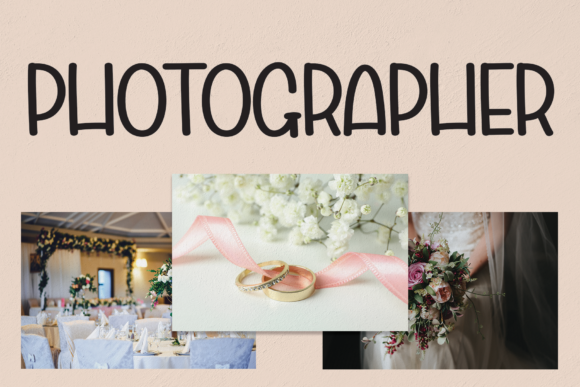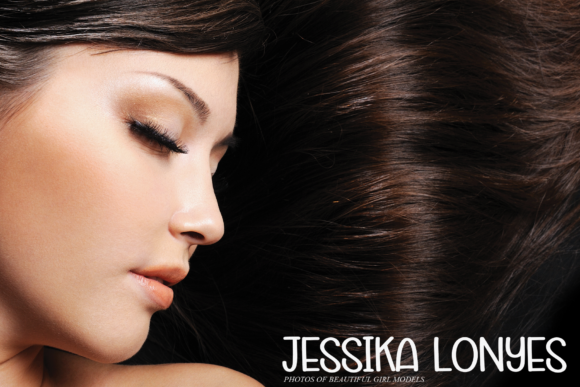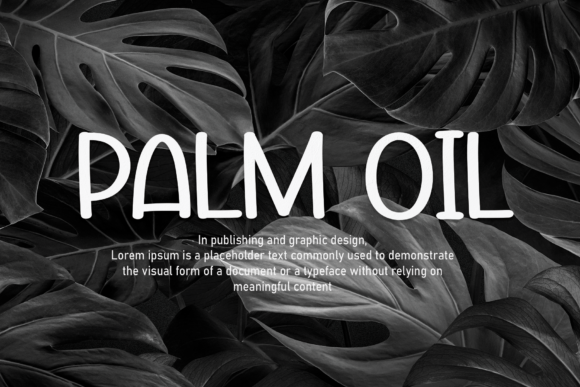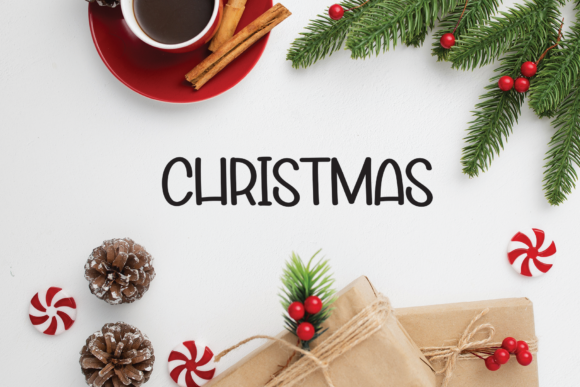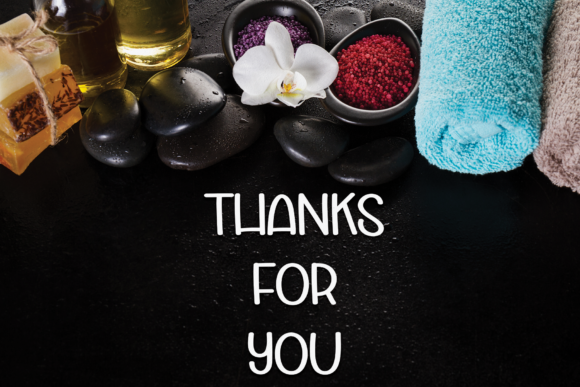
The Birth of a Beautiful Font: A Designer’s Delight
I’ll never forget the time I was working on a wedding invitation project, and my client asked for a font that was both elegant and playful. I scoured the internet, tried out countless fonts, but nothing seemed quite right. That was until I stumbled upon the Birthday Font. It was love at first sight! ✨
With its simple and adaptable script style, Birthday Font quickly became my go-to for a wide range of design projects. From wall displays to social media post logos, this font has proven to be a versatile and reliable choice.
What Makes Birthday Font So Special?
So, what sets Birthday Font apart from other fonts out there? Let’s take a closer look.
- ✨ Simple and adaptable script style
- ✅ Ideal for a wide range of design projects, from wall displays to social media post logos
- ✅ Easy to read and understand, even at small sizes
- ✅ Works well with both modern and traditional design elements
- ⚠️ Limited availability of stylistic alternates
- 🤔 May not work well with very ornate or intricate design elements
The Designer Inspiration Behind Birthday Font
The story behind Birthday Font is one of creativity and passion. According to the designer, the font was inspired by the joy and celebration of birthdays. The goal was to create a font that was both simple and adaptable, yet elegant and refined.
Q: What type of designs is Birthday Font best suited for?
Birthday Font is ideal for a wide range of design projects, including wall displays, wedding invitations, social media post logos, advertisements, product packaging, product designs, labels, photography, watermarks, invitations, stationery, and any project that requires a neat vibe.
Q: Is Birthday Font available in different styles or weights?